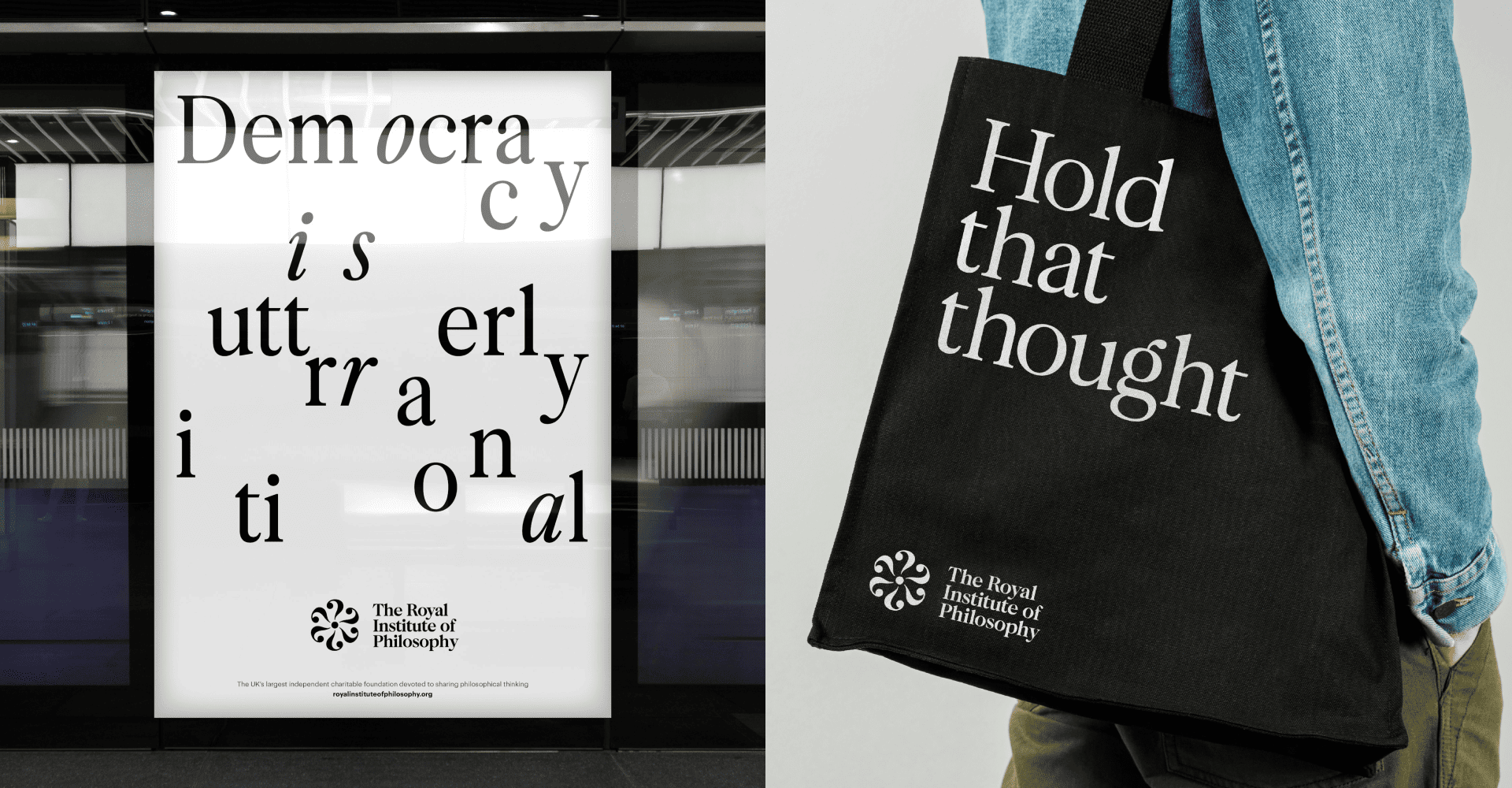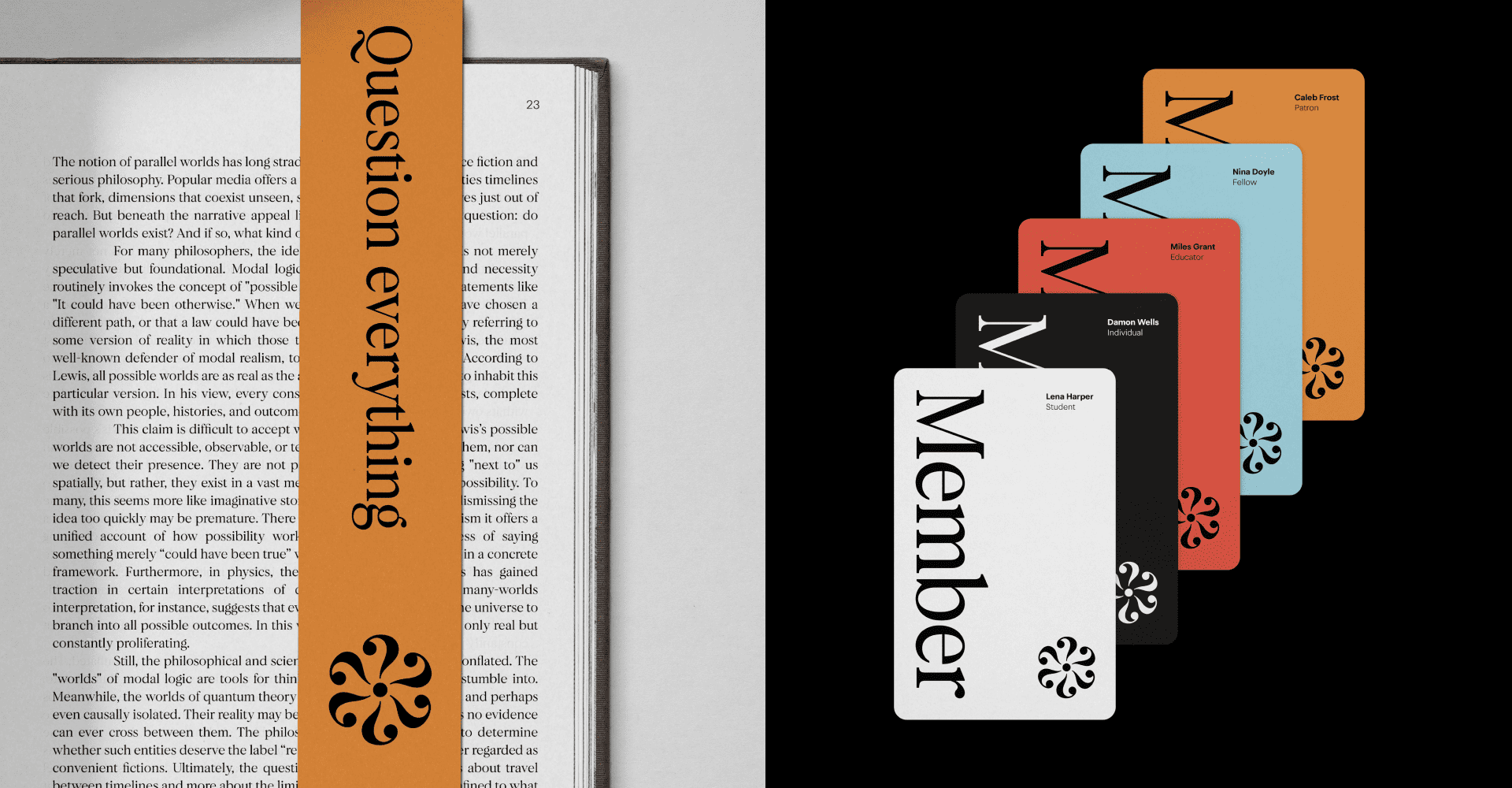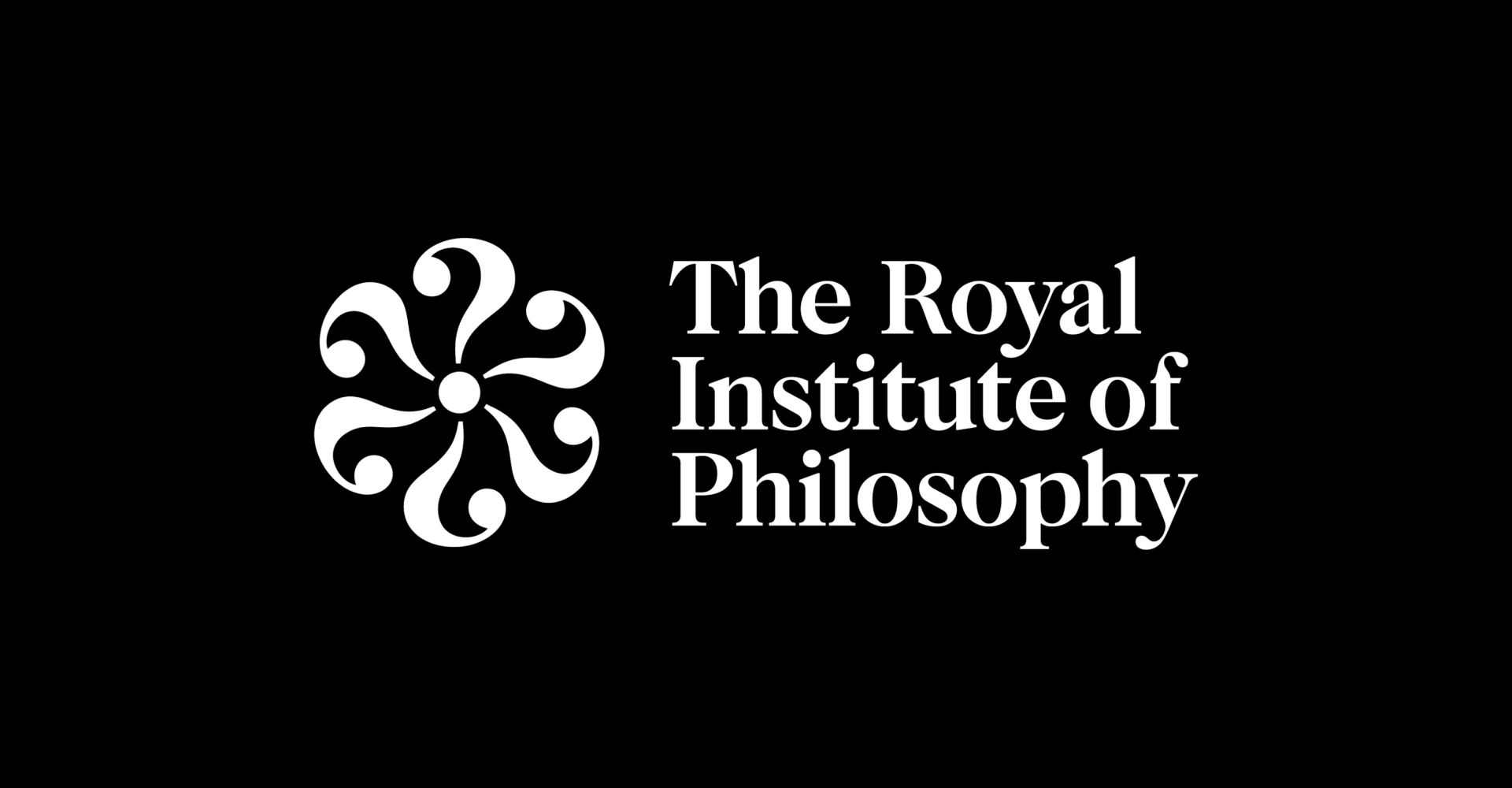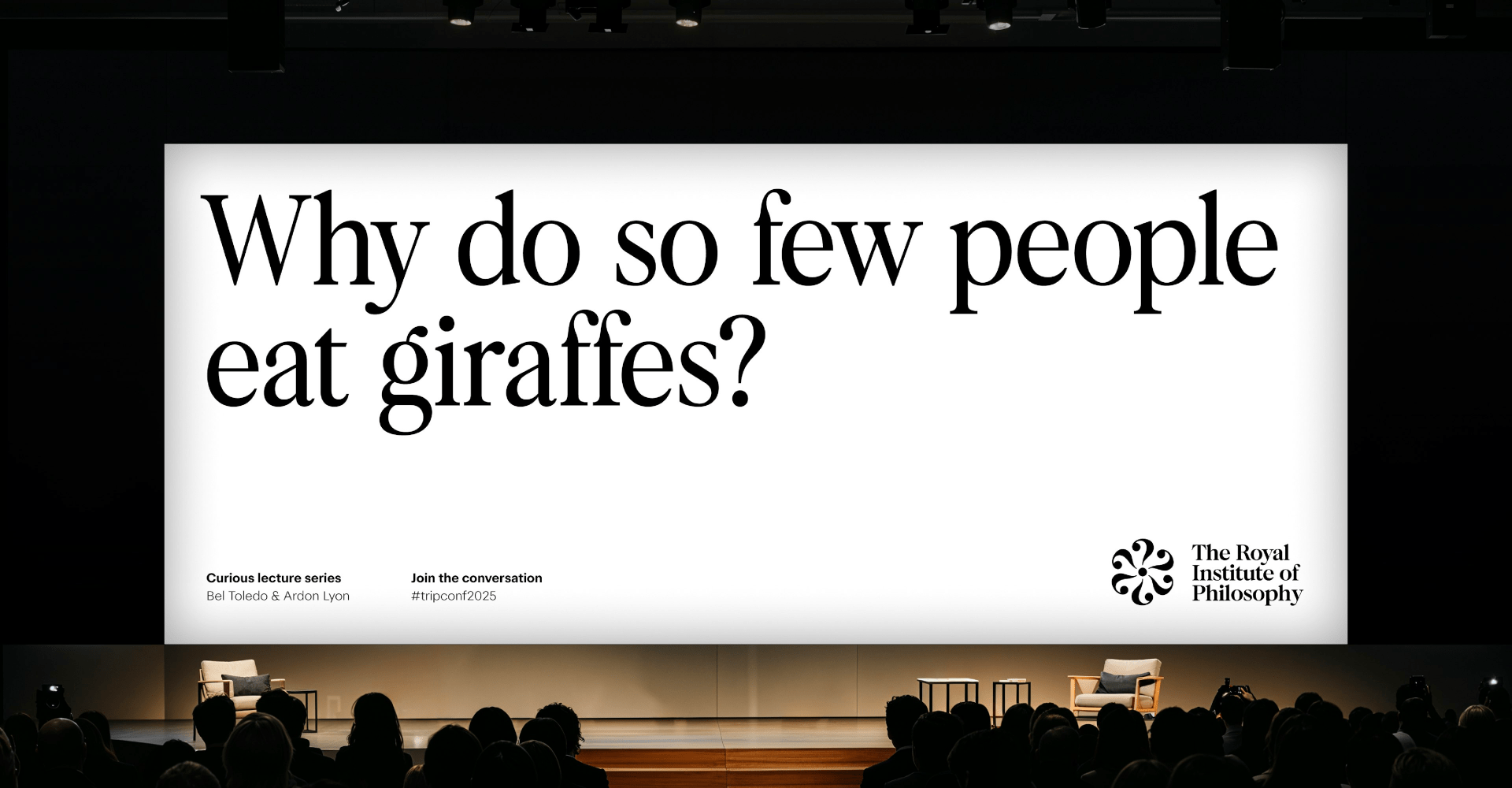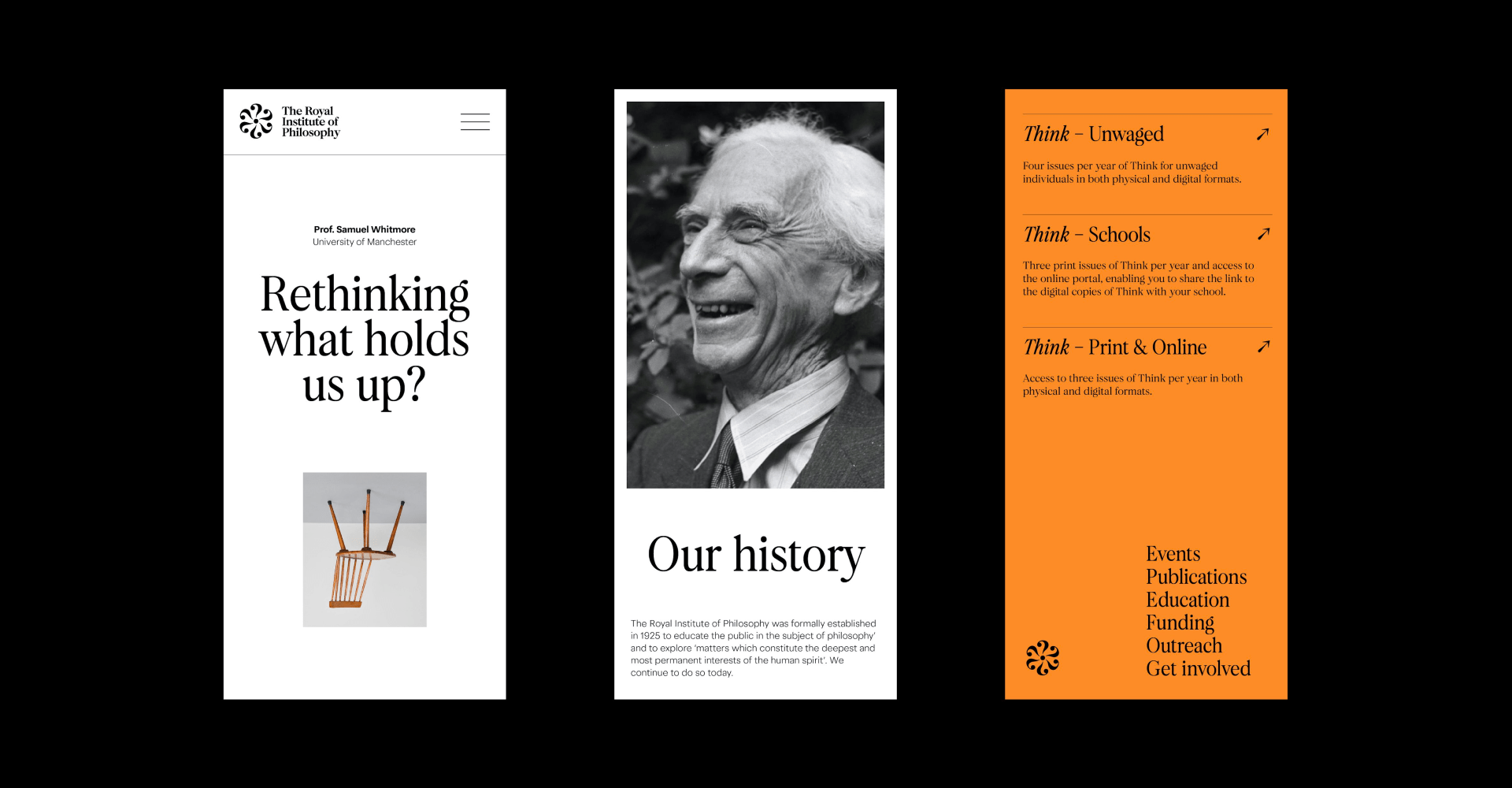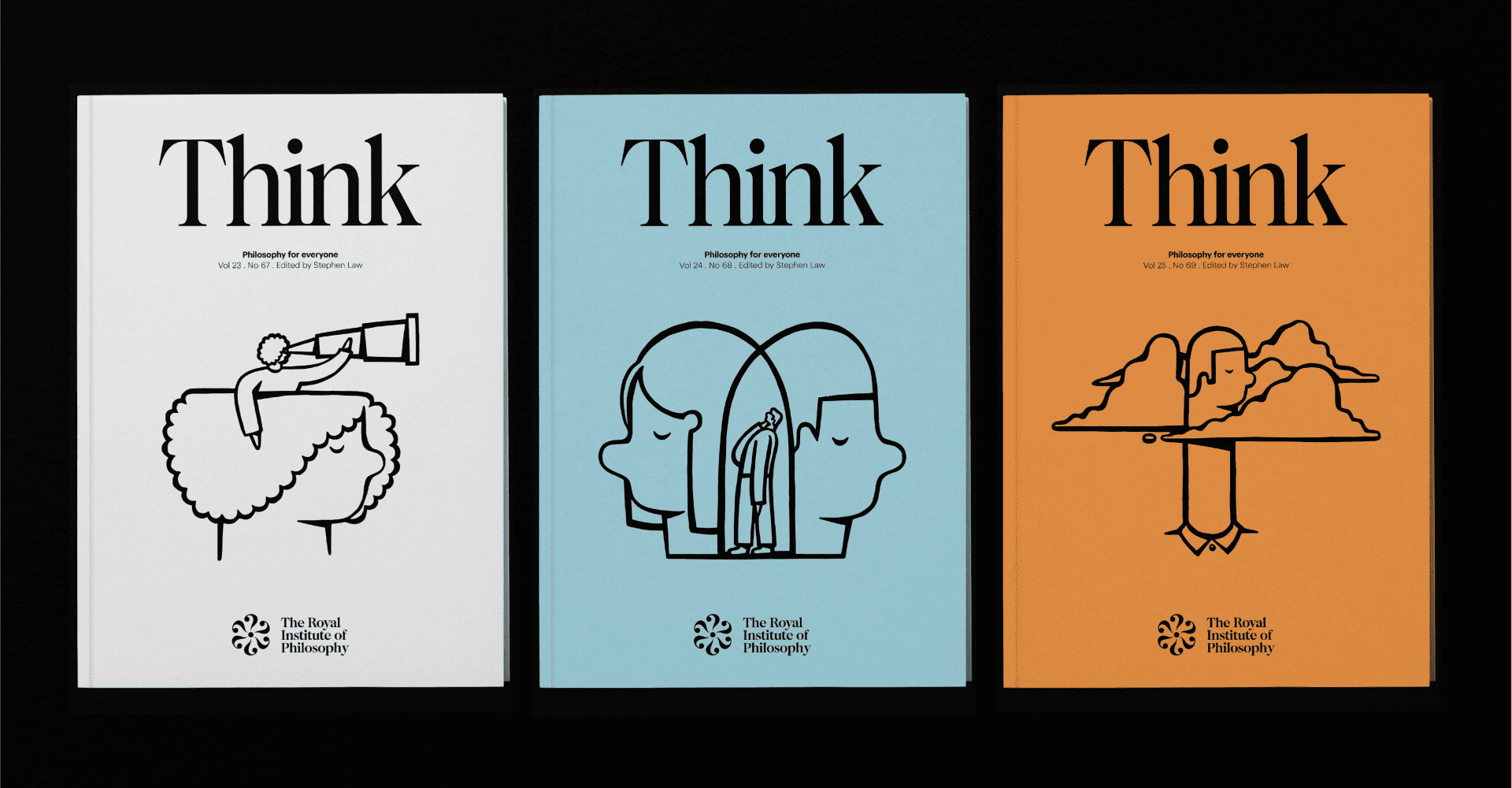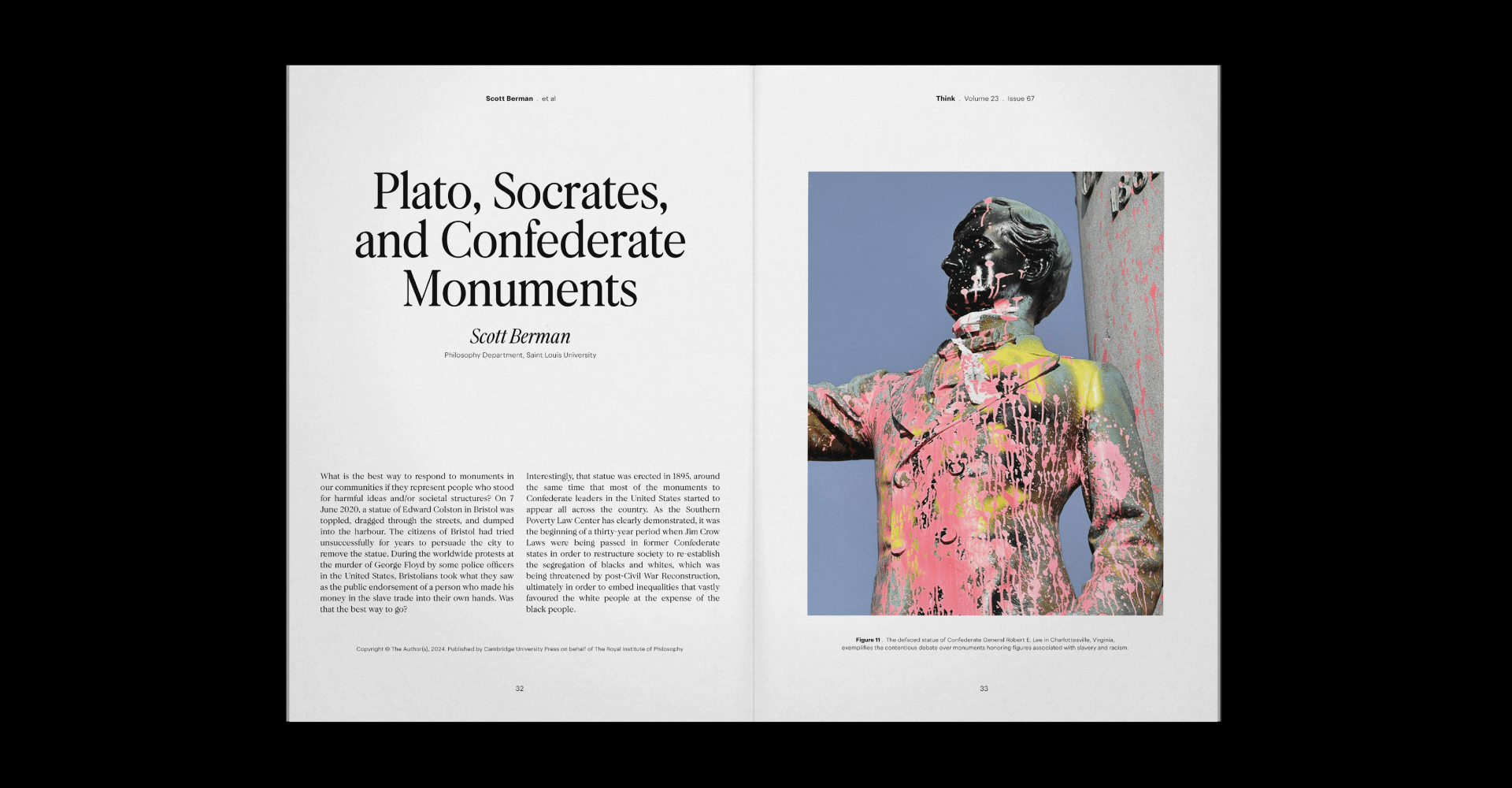
How to make philosophy accessible? This is one of the questions that Only Studio faced when building the new look of the Royal Institute of Philosophy, UK’s leading independent charity dedicated to making philosophical ideas accessible to everyone. As a legacy brand, they encountered a common challenge: staying relevant while honoring a rich history. For their centenary, they approached Only Studio to help redefine their visual identity, aiming to become an open, questioning, and contemporary force. The studio took on this challenge by focusing on a simple yet powerful concept: “Question Everything.” getting straight to the heart of what philosophy is all about: curiosity and deep thinking.
The Question Mark
Questions are where philosophy begins, and this concept comes to life in the Institute’s main icon. The mark is built from six repeating question marks, all united at a single point. This creates a visual puzzle, a shape that can be interpreted in different ways depending on the observer. It could be a flower, a spark, or even a galaxy. No matter your take, the idea of a simple beginning expanding into something much bigger is always present. The contrast in the glyphs makes the mark a simple, but truly memorable symbol.
Telling a story through type
Typography is the main narrative tool for the Institute’s identity. Beyond using a glyph as the building block for their icon, there’s a whole typographic conversation going on across all touchpoints. The studio chose two distinct typefaces: F37 Calson and F37 Blanka, both under the F37 Foundry catalogue. F37 Calson, a refined serif, brings a sense of warmth and history to the identity. Paired with F37 Blanka, a modern sans serif, it creates a dynamic system that feels both serious and inviting.
Building a Brand That Invites
Only Studio’s work transformed The Royal Institute of Philosophy’s presence, from its website to its publications. They created a clean, timeless layout that ensures clarity and makes rich philosophical material easily accessible. The new design for the journal Think, for example, uses confident typography and layouts to make the content inviting, featuring illustrations by Beth Walrond. It brings to life the journal’s mission of making philosophy for everyone. This rebrand signals a new chapter for the Institute, one that is more ambitious and active in bringing powerful ideas to a wider audience.
A Legacy of Ideas
Founded in 1925, the Royal Institute of Philosophy was created to make philosophical thought more accessible to the public. For nearly a century, it has grown into the UK’s largest independent charitable foundation in this field. The Institute’s mission has always been to bring big, foundational questions to curious people from all walks of life, empowering them to think for themselves. This rich history provided Only Studio with a solid ground to build upon, ensuring the new identity honored the past while confidently moving into the future.
Only Studio’s own philosophy of simple is powerful shines through in this project. They are a branding agency focused on transforming complexity into clear, powerful ideas. Their meticulous approach to craft builds brands that stay relevant and gain significance over time, rather than chasing fleeting trends. For The Royal Institute of Philosophy, this meant creating a brand that stands out and connects with people by focusing on a clear, strategic concept, proving that the most direct ideas are often the most impactful. you can check out their website here.